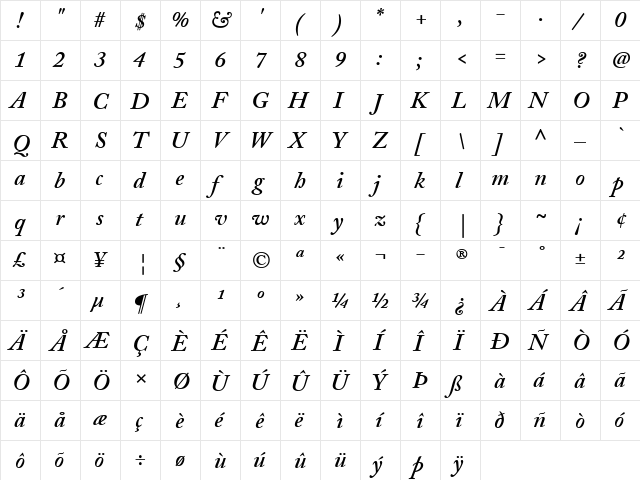
ACaslon Regular Bold Italic Font Preview
Design Context for ACaslon Regular Typeface
ACaslon Regular offers clean, dependable letterforms without strong stylistic allegiance, making it a practical choice for designers who need flexibility. Its italic angle brings a sense of urgency and motion to the letterforms. Its bold stroke weight gives it real presence on the page.
Pro Tip: Try ACaslon Regular for annotation and caption copy alongside an upright companion — the contrast in angle creates a dynamic but ordered typographic system.